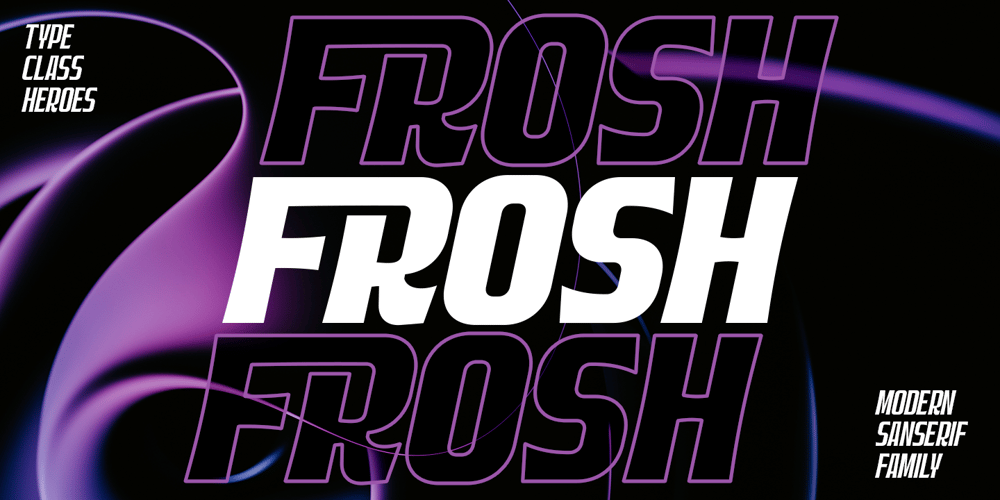
Frosh
Frosh font
Frosh Font Family was designed by Suandana ipandemade and published by TypeClassHeroes. Frosh contains 18 styles and family package options. Introducing Frosh is a sans family modern style with stylistic, alternates, ligatures and supports multilingual languages. Comes in weights with various width and weight that you can explore and combine. Use this font family for any branding, product packaging, invitation, quotes, t-shirt, label, poster, logo etc.Character Set Uppercase & Lowercase Number & Symbol International Glyphs Ligatures Multilingual support Feel free to drop us a message or shoot me on email at: Suandana_Ipandemade@hotmail.com any time and follow my shop for upcoming updatesHope you enjoy it.